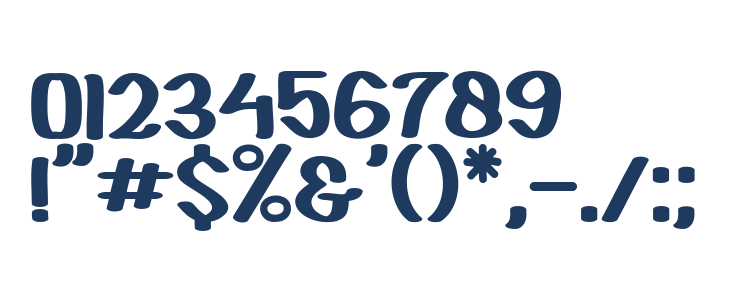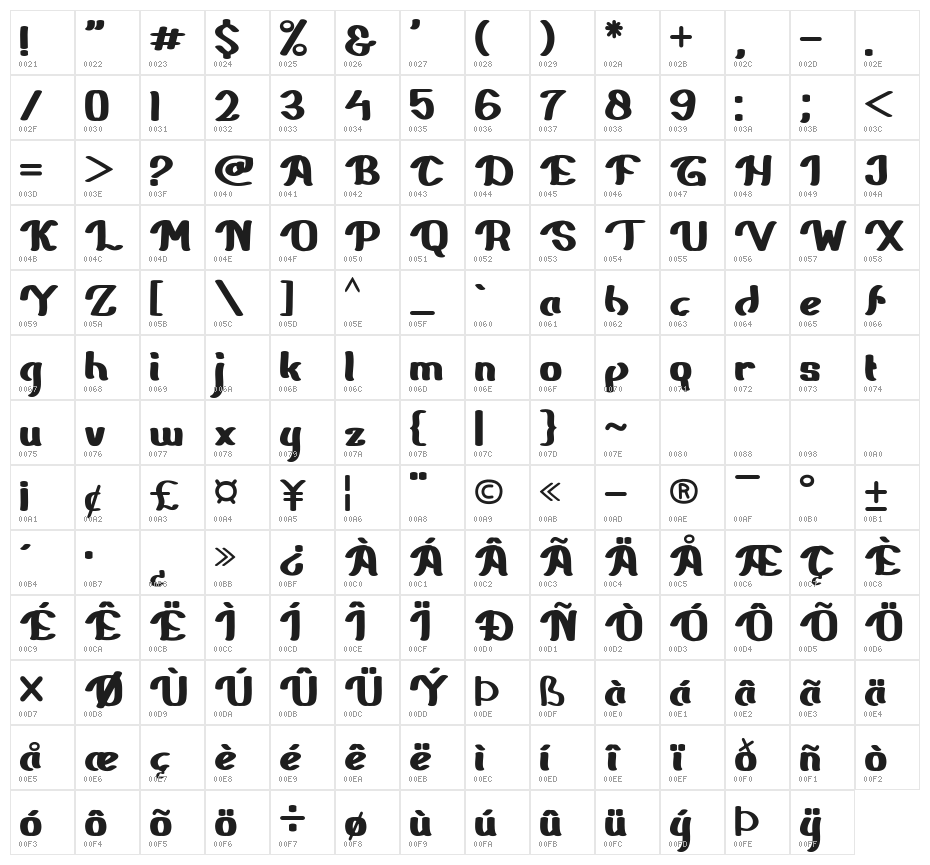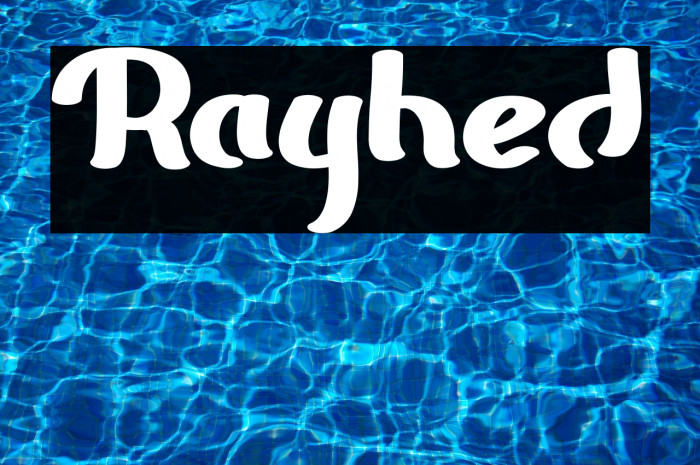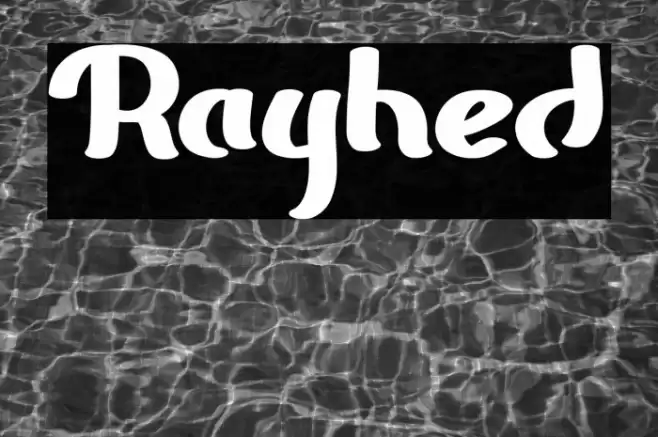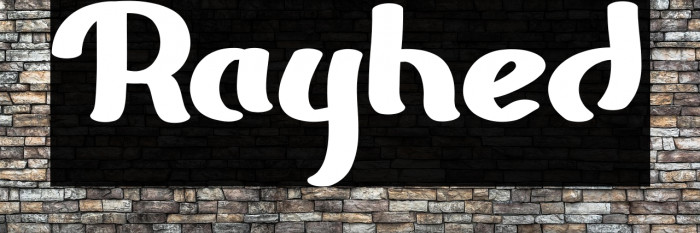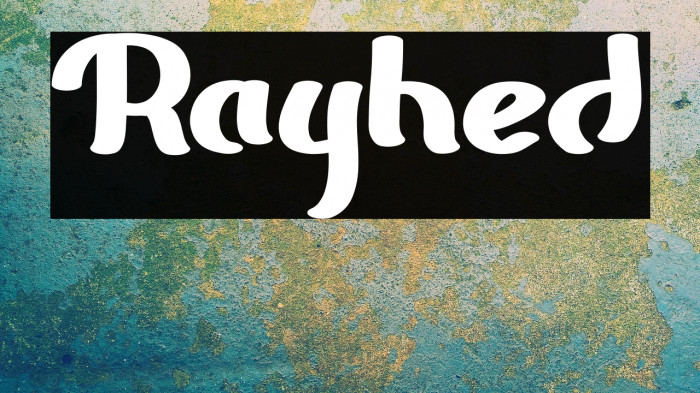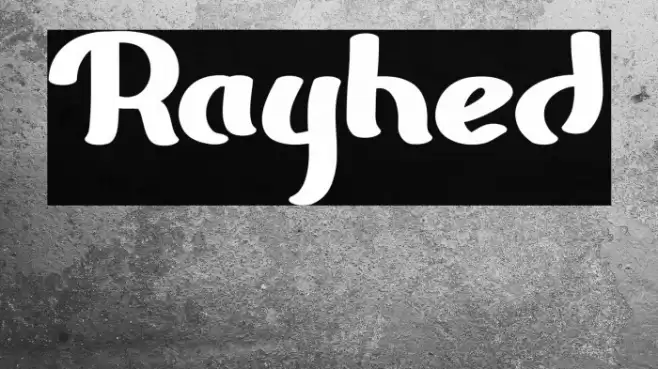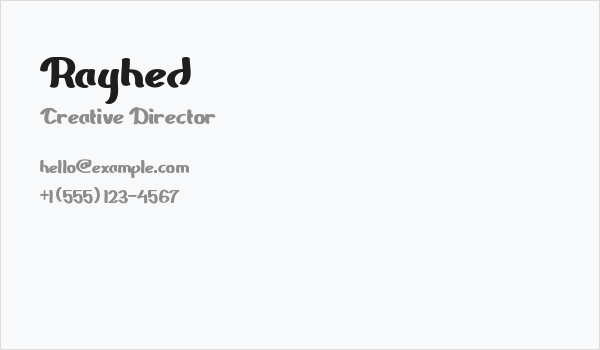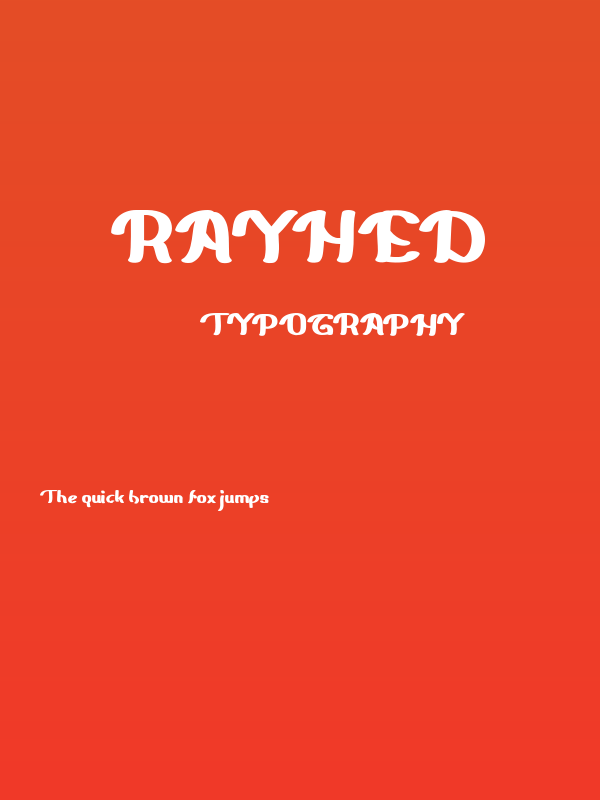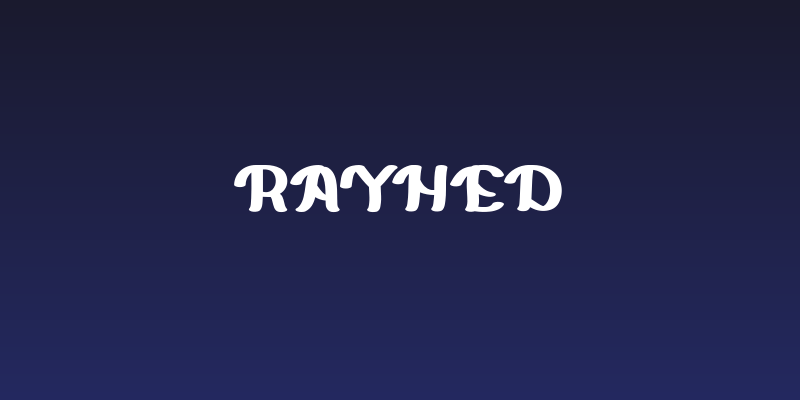
Rayhed Font
Rayhed Description
This font features a bold and playful style with a unique, flowing design that combines elements of both script and decorative fonts. The characters exhibit a consistent thickness, providing a strong visual impact. The uppercase letters are particularly stylized, with exaggerated curves and flourishes that add a whimsical touch. The lowercase letters maintain a similar style, ensuring readability while retaining the font's distinctive character. The numbers and special characters are equally bold, complementing the overall design. This font's playful nature makes it ideal for creative projects that require a touch of fun and flair.
| Overall Style | Playful, Decorative |
| Proposed Projects | Ideal for children's books, playful branding, posters, and creative invitations. |